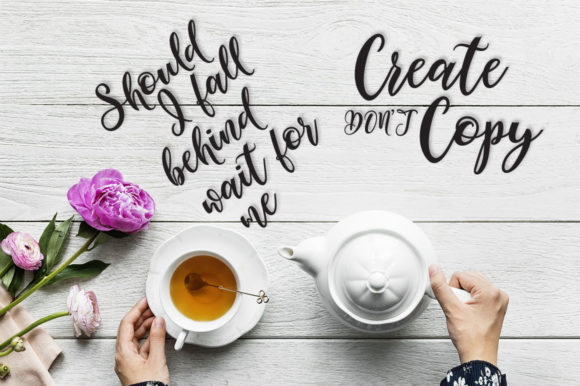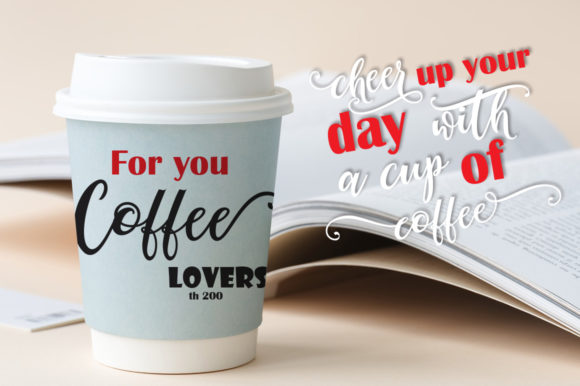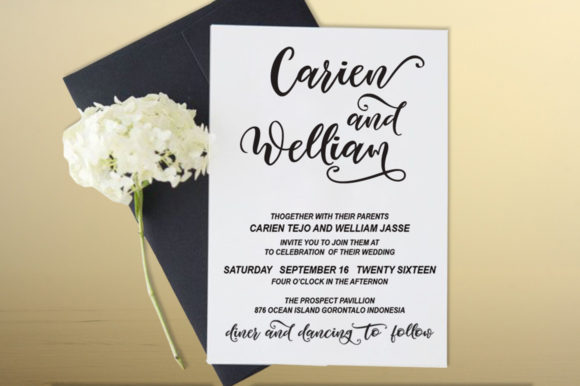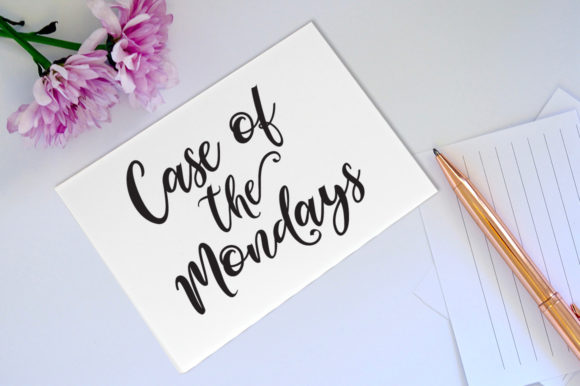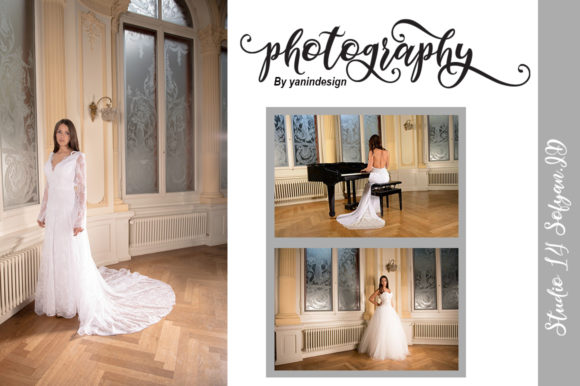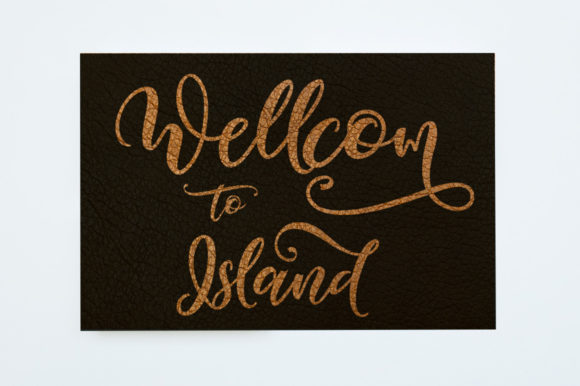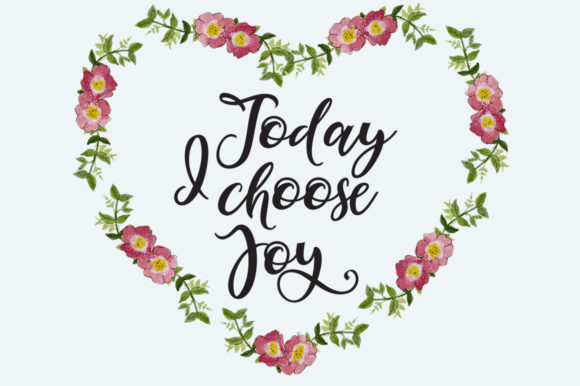
Regular Queen Font
About Regular Queen Font
Regular Queen is a script font that was handwritten with beautiful characters. Get inspired by its romantic charm!